Typefaces or fonts affect a lot in a design. Choosing the right font and playing it with is an art of a designer. In this today’s blog, I am introducing you to 8 such awesome fonts every design studio should own. If you are left to implement any of these font then start it right away. I am sure you’ll get beautiful designs with these fonts. Have a look at it below:
1. Helvetica Neue
Helvetica Neue is one of the most popular typefaces that is designed by Max Miedinger. This font forms an integral part of many printers and operating systems creating new standards in terms of its form and numbers of variants. It can indeed be used for any type of communication.
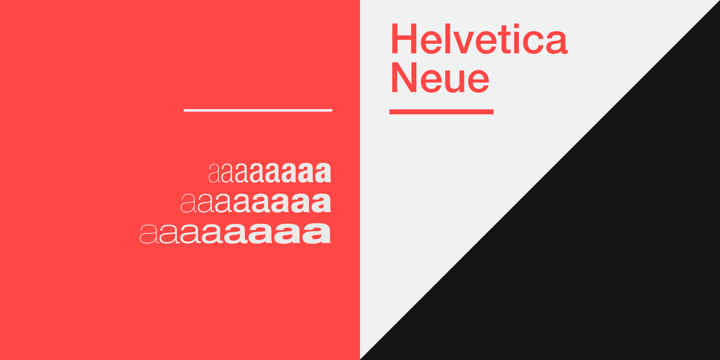
2. FF Din
FF Din is an advanced typography designed by Dutch type designer Albert-Jan Pool. It supports several features such as case-sensitive forms, super- and subscript characters, fractions, and stylistic alternates. This family has 20 weights ranging from Light to Black in Condensed and Medium. This font is suited for advertising, packaging, editorial, logo, branding, web design and many more.
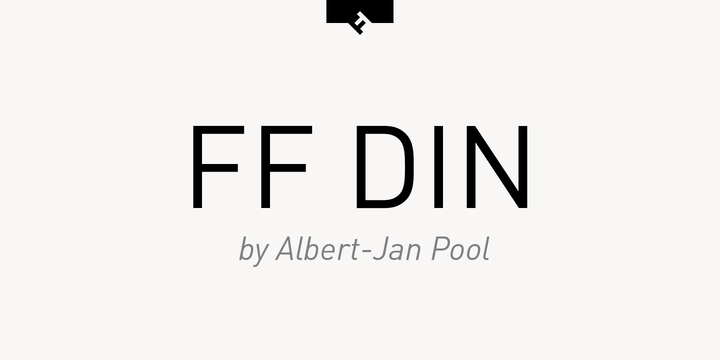
3. Brandon Printed
This Brandon Printed font is based on the famous Brandon Grotesque. It has variant style with eroded, printed look and shadowed version. It also contains a set with 95 extras like arrows, catchwords, lines, numbers and stars.
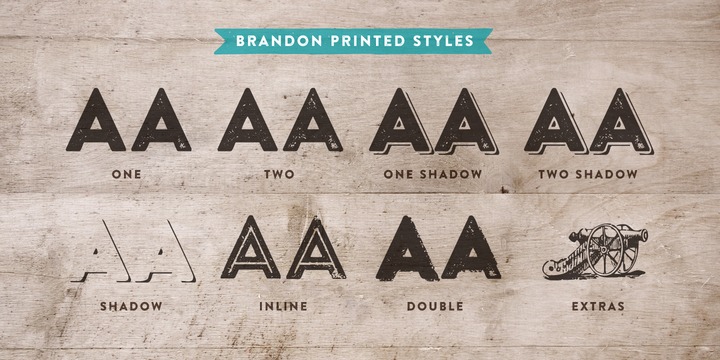
4. Museo Slab
Museo Slab is the perfect match for Museo Sans. It is a robust slab serif with Museo‘s friendliness.
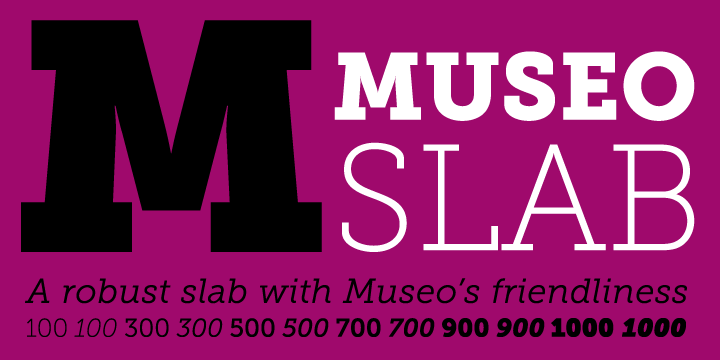
5. Quickpen
Quickpen is casual and carefree type of typeface that is designed to recreate the look of confidence, quickly jotted script with a felt tip pen or brush.
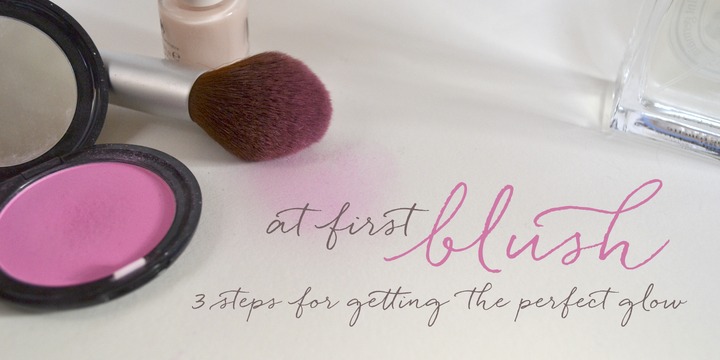
6. Miller
Miller, a historic font is recommended for Newspaper, Book, Magazine and other corporate use is designed by Matthew Carter.
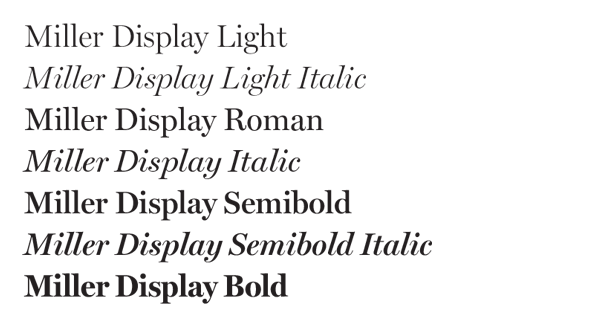
7. Frutiger
Frutiger is an appropriate font for many applications and advertising agencies with a universal quality. It was designed by Adrian Frutiger for developing a signage system.
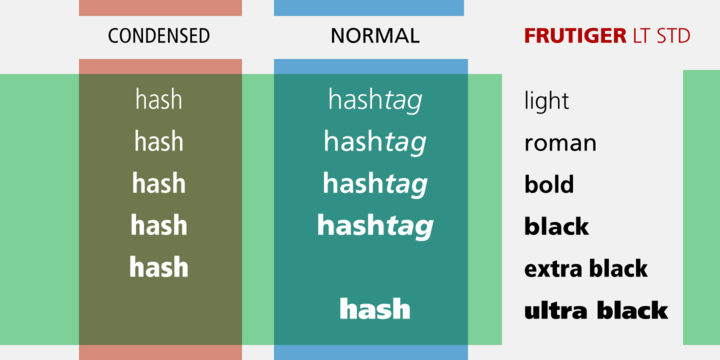
8. Core Circus
Core Circus is a layered type typeface that consists of seven 3D effect layers, eight 2D effect layers and one shadow effect layer. Uppercase and lowercase letters are separated by such features that counters are opened or closed. This typeface is very suitable for book titles, headlines, logotypes and any other artworks.